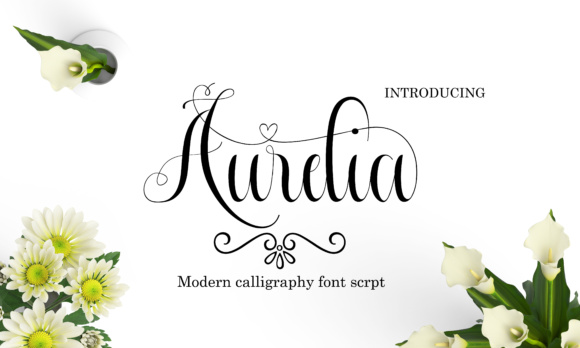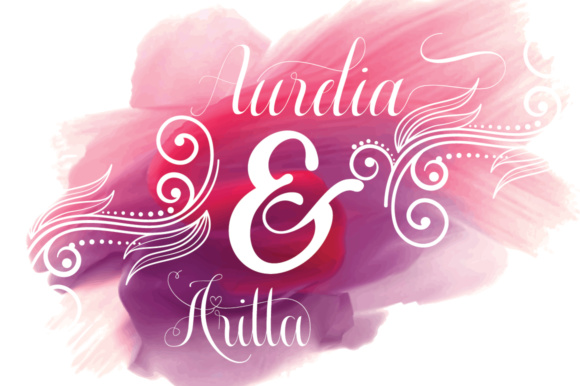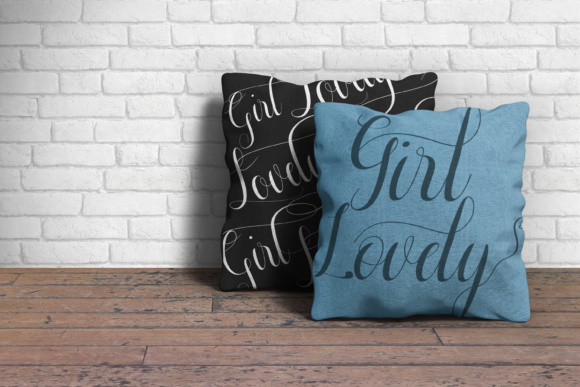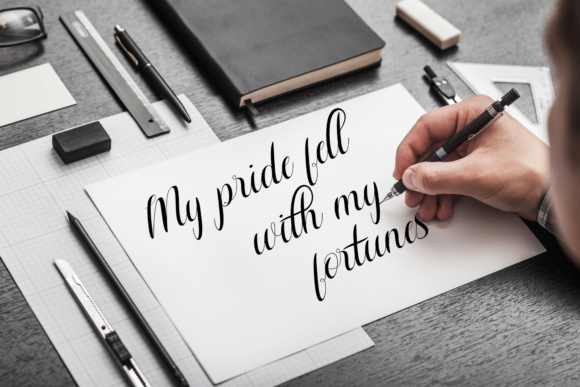
HomeScript FontsAurelia Font Script Fonts Aurelia Font FacebookXPinterestWhatsApp Aurelia Font Poster 2 Aurelia Font Poster 3 Aurelia Font Poster 4 Aurelia Font Poster 5 Aurelia Font Poster 6 Aurelia Font Poster 7 About Aurelia Font Aurelia is a lovely modern calligraphy typeface. It features a classic style with a modern twist. DOWNLOAD NOW People also explored Sublimation Font Hand Fast Font Safe Love Font Sisterhood Elegant & Beautiful Script Font Super Sans Font Sandria Font Romance Font Jastland Font Baby Shark Font 270 0 TagsAurelia Font Previous articleK26 Infinitus FontNext articleMarlena Font LEAVE A REPLY Cancel reply Comment: Please enter your comment! Name:* Please enter your name here Email:* You have entered an incorrect email address! Please enter your email address here Website: Save my name, email, and website in this browser for the next time I comment. Personal Use Free Mounets Personal Use Free Read more about this font Elsabetha Personal Use Free Read more about this font Rheiborn Personal Use Free Read more about this font Glowing Personal Use Free Read more about this font BLOG Using Fonts in Digital Marketing: Tips to Strengthen Your Brand Identity In the realm of digital marketing, every visual element plays a crucial role in shaping a brand's identity, and fonts are no exception. The... Best Fonts for T-Shirt Design – Top 2025 Picks 5 Fonts That Will Dominate Design Trends in 2026 Exploring Font Trends